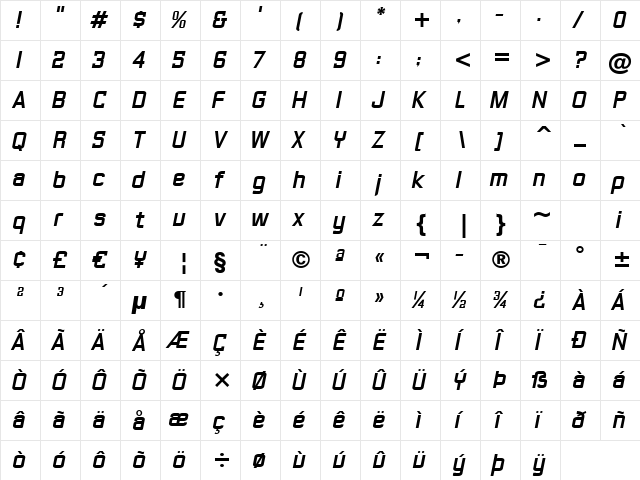
Gasoline Sans BTN BoldOblique Font Preview
Design Context for Gasoline Sans BTN Typeface
Gasoline Sans BTN takes a measured approach to typography — its balanced proportions and neutral character make it a reliable workhorse for both digital and print work. The slanted form adds forward momentum and visual energy. Its bold stroke weight gives it real presence on the page.
Pro Tip: Try Gasoline Sans BTN for annotation and caption copy alongside an upright companion — the contrast in angle creates a dynamic but ordered typographic system.